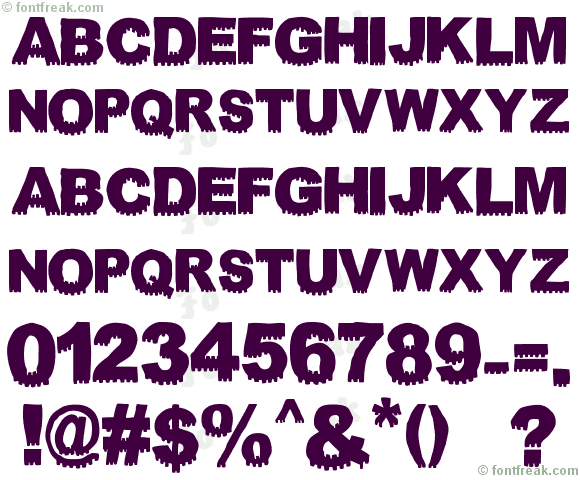
NEVERLAND
The NEVERLAND font by woodcutter Manero is a captivating decorative typeface that exudes a whimsical charm. This font features a distinctive design characterized by its playful strokes and unique decorative elements that give it a fairy-tale quality. The stroke weight varies, offering a delightful contrast that enhances its visual appeal, while the spacing is thoughtfully crafted to ensure readability without sacrificing artistic flair. The font's design is reminiscent of storybook lettering, making it a perfect choice for projects requiring a touch of magic.
NEVERLAND is particularly well-suited for a variety of creative applications. It shines in wedding invitations, where its enchanting style can elevate the romantic theme. Additionally, it is ideal for children’s book covers, bringing stories to life with a sense of adventure and imagination. Restaurant menus can also benefit from its playful aesthetic, especially in establishments that focus on a fun dining experience. Movie posters featuring fantasy or adventure themes can leverage NEVERLAND’s unique character to attract audiences. Content creators and graphic designers will find this font a valuable asset for social media graphics, adding a whimsical touch that resonates with followers.
The target audience for NEVERLAND includes graphic designers, small business owners looking to brand their products uniquely, and content creators who wish to infuse their work with creativity and style.
What sets the NEVERLAND font apart is its ability to blend artistic expression with functionality. The combination of its enchanting design and versatile applications makes it a standout choice for anyone seeking to add a touch of magic to their projects. For those looking to explore this enchanting typeface, a NEVERLAND font free download is readily available, allowing creatives to incorporate this delightful font into their work effortlessly.